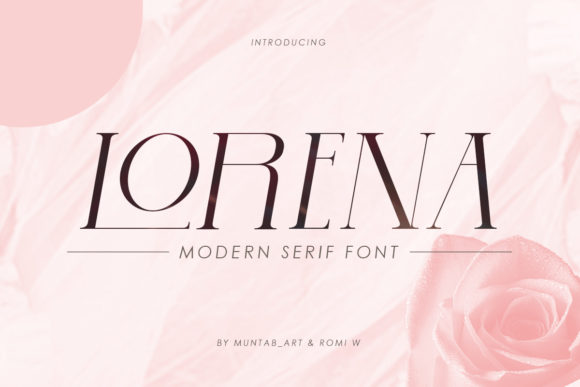
Introducing Lorena Font - The Epitome of Sophistication and Timeless Elegance
Embark on a voyage of typographic artistry with Lorena Font, a serif font that exudes contemporary grace and maturity. Crafted with meticulous precision by the renowned Muntab_Art, Lorena is not merely a font; it's an expression of elegance and sophistication.
This unique typeface possesses an inherent editorial aesthetic, lending an air of sophistication to any design endeavor. Its carefully crafted curves and sharp serifs dance harmoniously, creating a visual symphony that captivates the eye.
With Lorena Font as your creative companion, you'll effortlessly elevate your designs to new heights. Its timeless appeal makes it a perfect choice for branding, packaging, editorial design, and any project that demands a touch of refinement.
Unleash your creativity and explore the boundless possibilities that await with Lorena Font. Let your designs radiate with an aura of professionalism and sophistication, leaving a lasting impression on your audience.